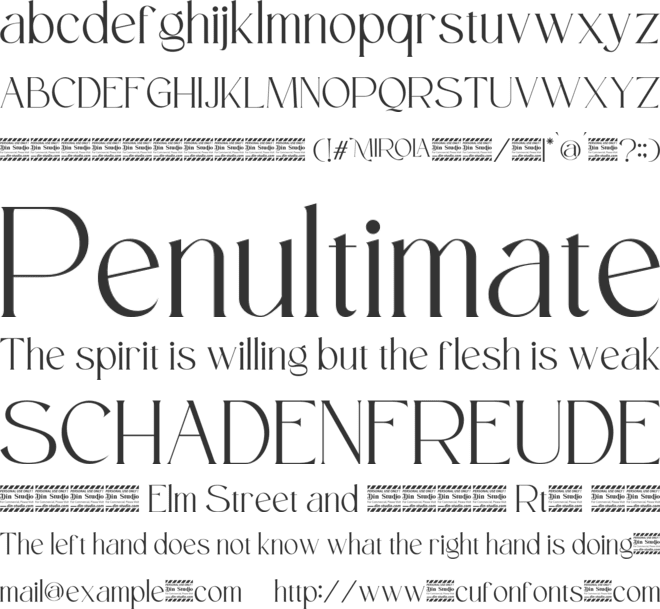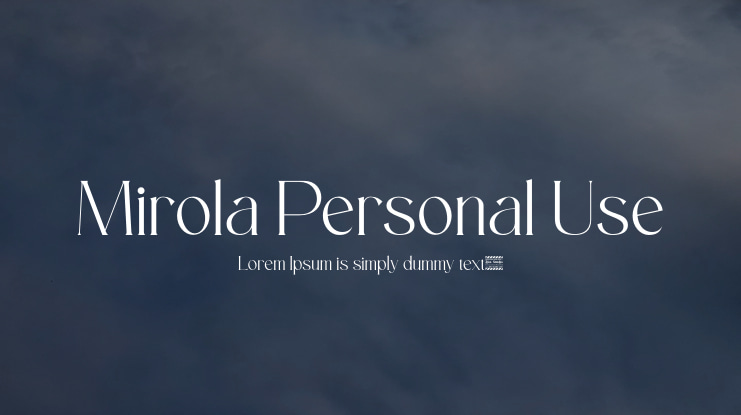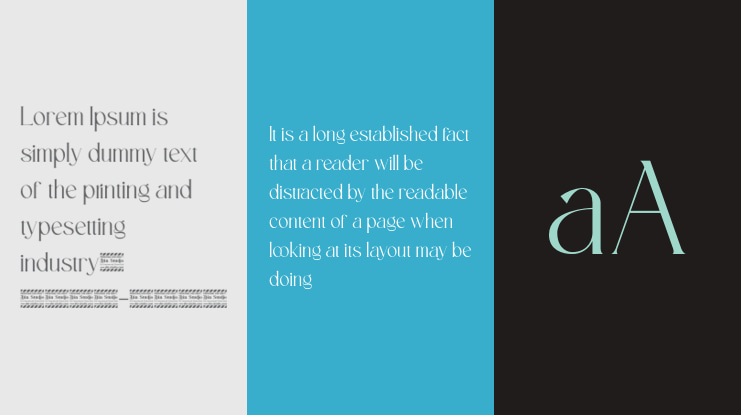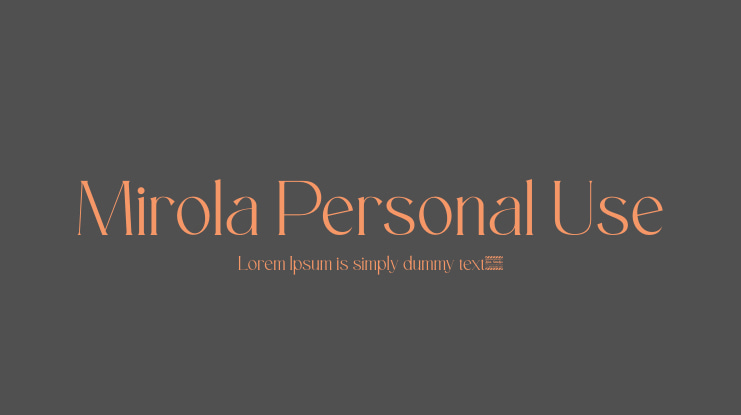
Mirola is a serif used in modern styles. It fits your designs. It’s effortlessly beautiful and undoubtedly gorgeous. It’s brave to face uncertainty. These all represent you. Go ahead and use it on your websites, social media brandings, Pinterest banners, printed invitations, and more!